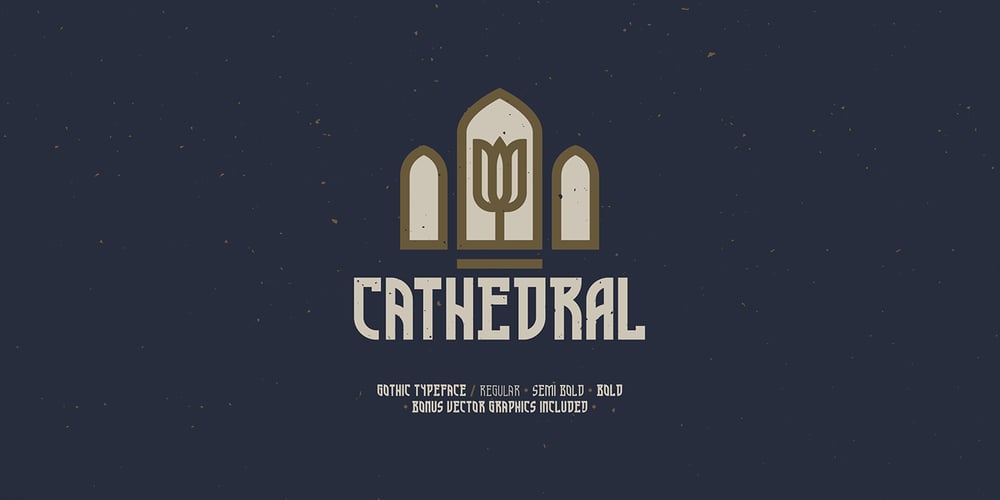
Cathedral Display Font Family was designed by Clint English and published by Clint English. Cathedral Display contains 3 styles and family package options. Cathedral is a display typeface with regular, semi bold, and bold weights with alternate glyphs for select characters. This font comes with bonus vector graphics that accompany the font. The bonus vector graphics have editable stroke weights, so they can match each type weight, or any other need you have in mind.